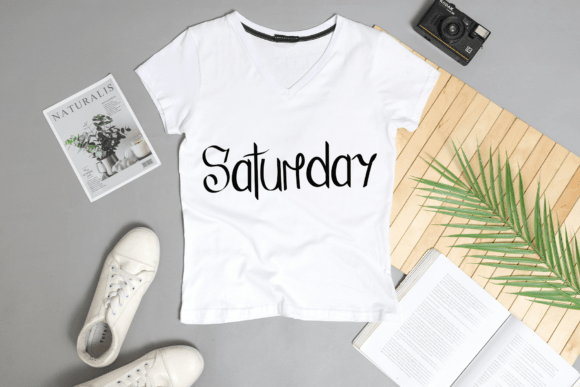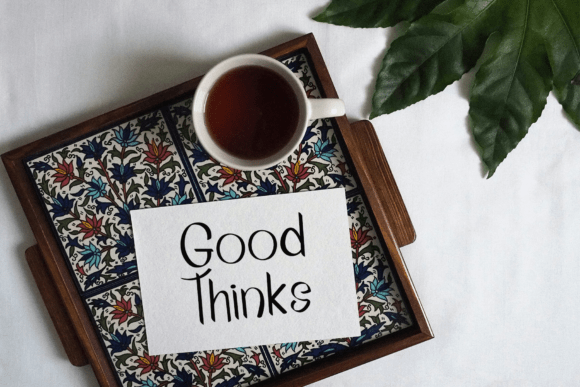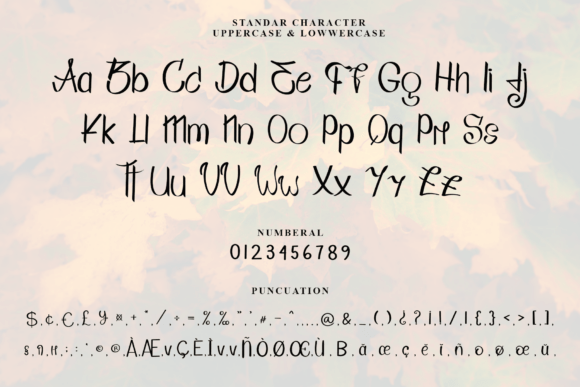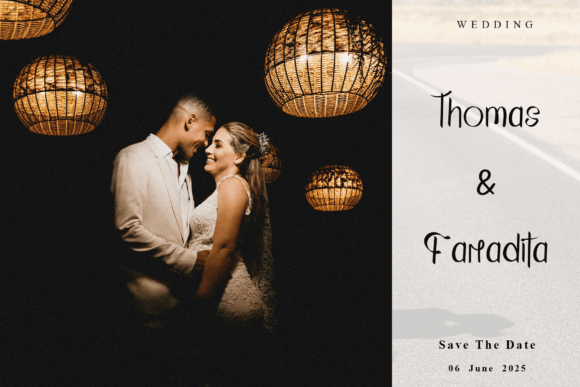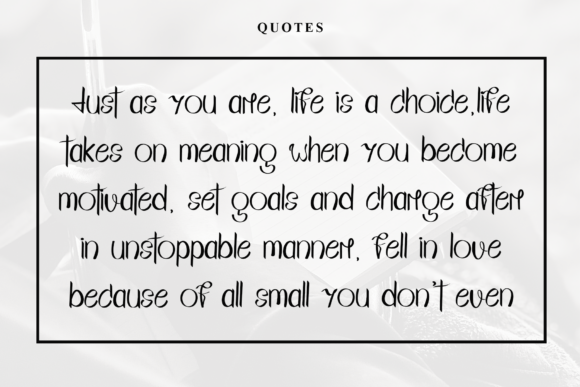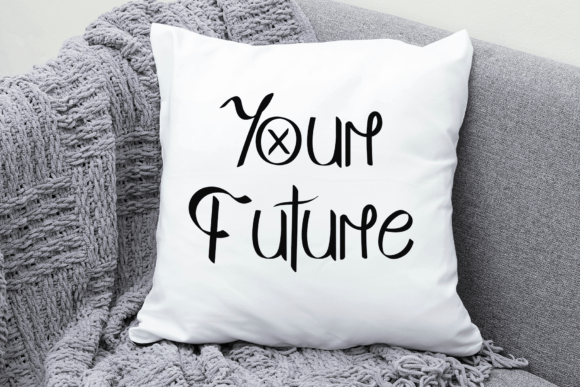
Unleash Your Creativity with Background Font
There’s something magical about designing a project that feels like a personal letter to your audience. You’re not just conveying information, you’re sharing a piece of yourself. And that’s exactly what makes the Background Font so special – it’s like a warm hug for your readers. This beautiful, handwritten font has a way of adding a natural, effortless charm to any project, from greeting cards to headlines.
Background Font is a versatile tool that lets you add a personal touch to your designs. Whether you’re a seasoned pro or just starting out, this font is guaranteed to make your work stand out. And the best part? It’s incredibly easy to use, so you can focus on what matters most – bringing your vision to life.
For designers, Background Font is a valuable asset that can elevate any project. Its unique, handwritten style adds a touch of personality that’s hard to find in more traditional fonts. So why settle for boring, generic fonts when you can use Background Font to add a little extra love to your designs?
Background Font Key Features
Design Review: Background Font
Overall, I think Background Font has some great ideas, but it falls short in a few areas. Let’s dive in.
- The typography is clean and easy to read, even in smaller font sizes.
- The font styles are versatile and can be adapted to different themes and styles.
- The customization options are decent, allowing users to adjust the font size, color, and spacing.
- The font selection is limited, making it difficult for users to find a font that suits their needs.
- The font rendering can be a bit glitchy, especially on lower-end devices.
- The design feels a bit generic and lacks a unique touch.
Overall, I think Background Font has potential, but it needs some refinement to compete with other design tools. With a bit more attention to detail and a wider font selection, it could be a solid choice for designers.
Practical Application Guide for Background Font